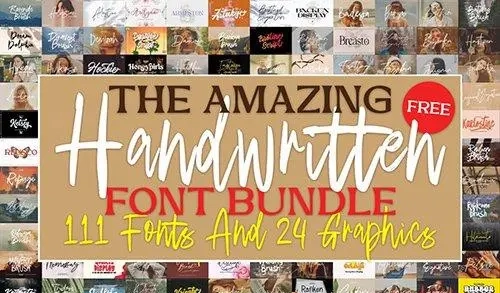
The Amazing Handwritten Font Bundles
Introducing The Amazing Handwritten Font Bundles, a collection of unique and expressive handwritten fonts designed to add a personal touch to your projects. Perfect for branding, logos, web design, print materials, and user interfaces, these fonts bring authenticity and character to your designs.
• Multiple font styles including script, display, and casual handwriting.
• Variety of weights to suit different design needs.
• Special characters and ligatures for enhanced creativity.
• High-quality vector outlines for crisp rendering.
• Ideal for creating logos, invitations, and greeting cards.
• Use in web design to enhance user engagement.
• Combine different styles for a unique visual appeal.